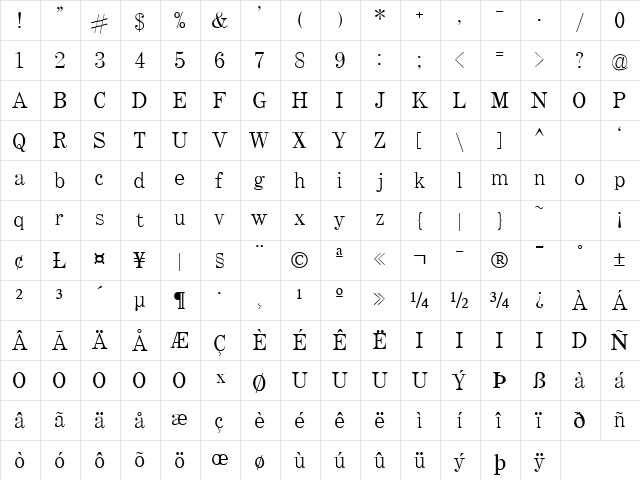
QTCraigetype Regular
Design Context for QTCraigetype Typeface
QTCraigetype is a composed and adaptable typeface that performs quietly and consistently across a wide range of design contexts.